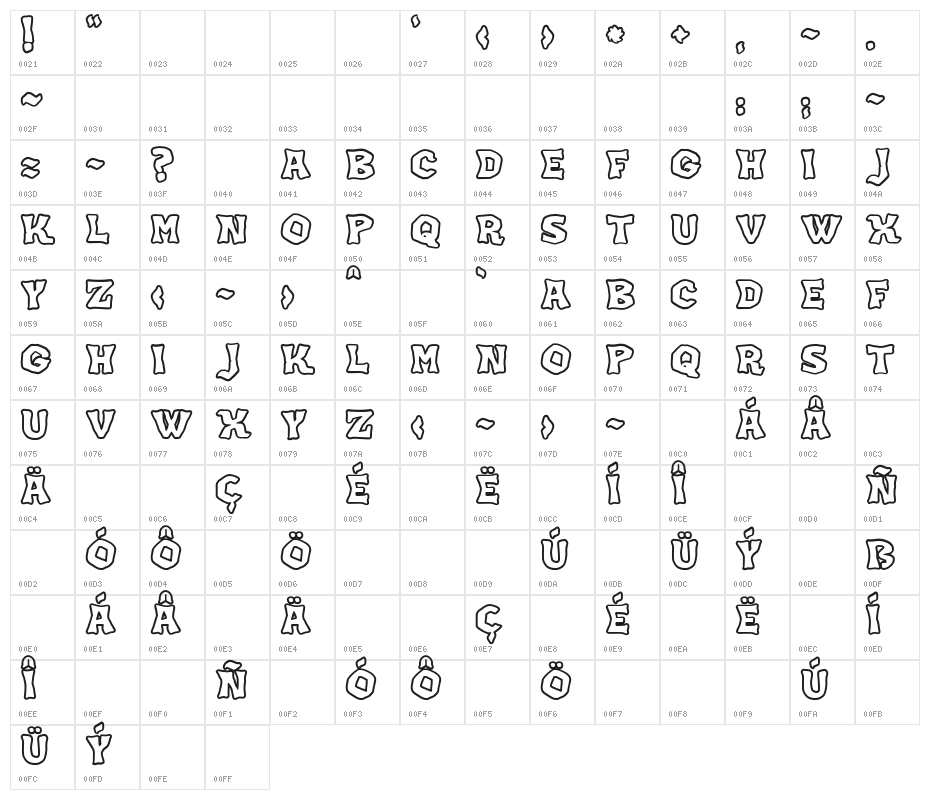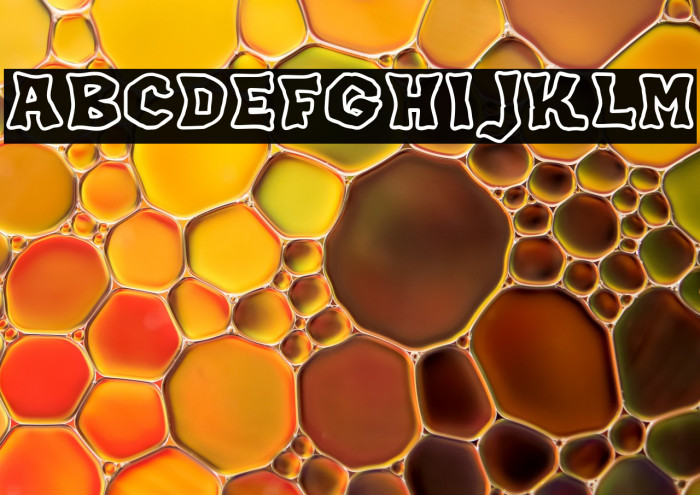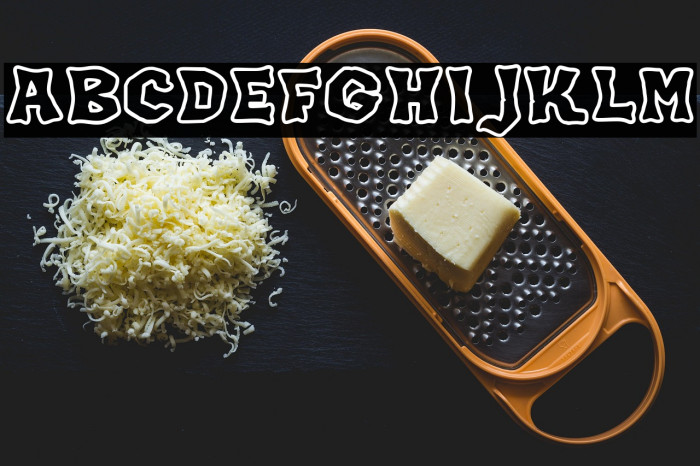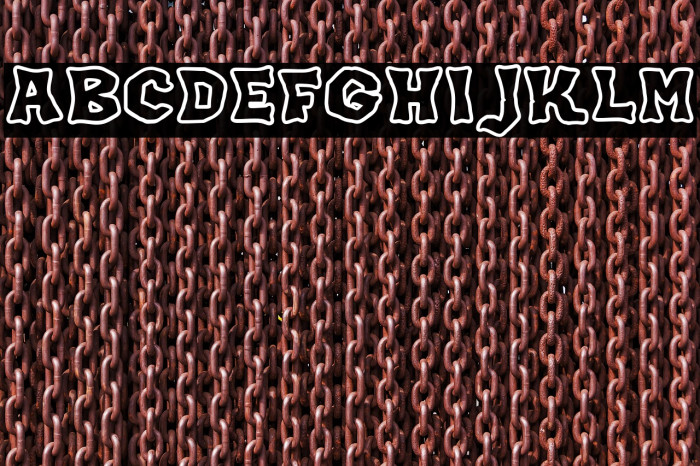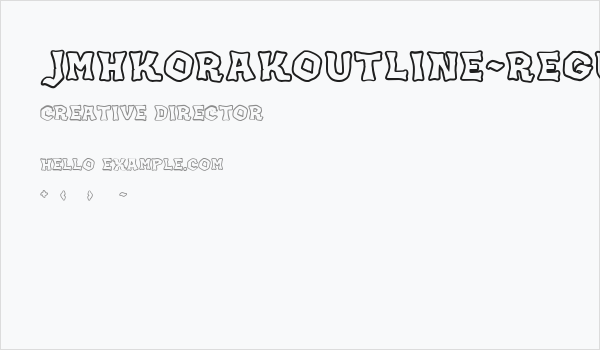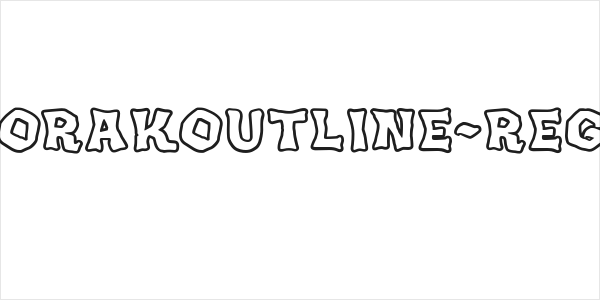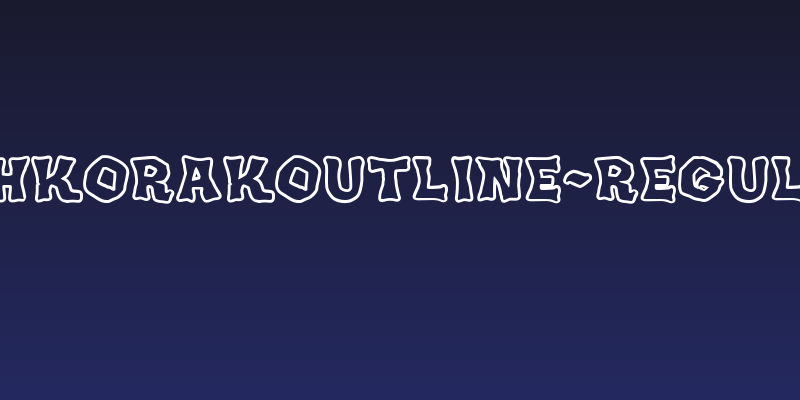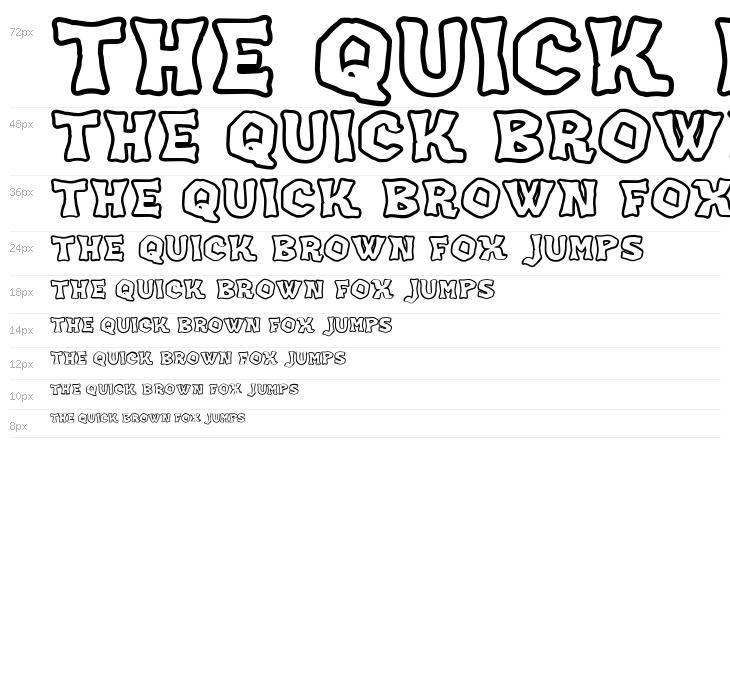
JMHKORAKOUTLINE-Regular Font
JMHKORAKOUTLINE-Regular Description
This font features a bold, playful outline style with a hand-drawn aesthetic. Each character is outlined with a thick, uneven stroke, giving it a cartoonish and whimsical appearance. The letters are uppercase, with a consistent height and width, creating a uniform look despite the irregular outlines. The font includes a full set of uppercase letters, numbers, and a selection of special characters, all maintaining the same outlined style. This design is eye-catching and ideal for projects that require a fun and informal touch.
| Proposed Projects | Ideal for children's books, comic strips, playful branding, and creative posters. |